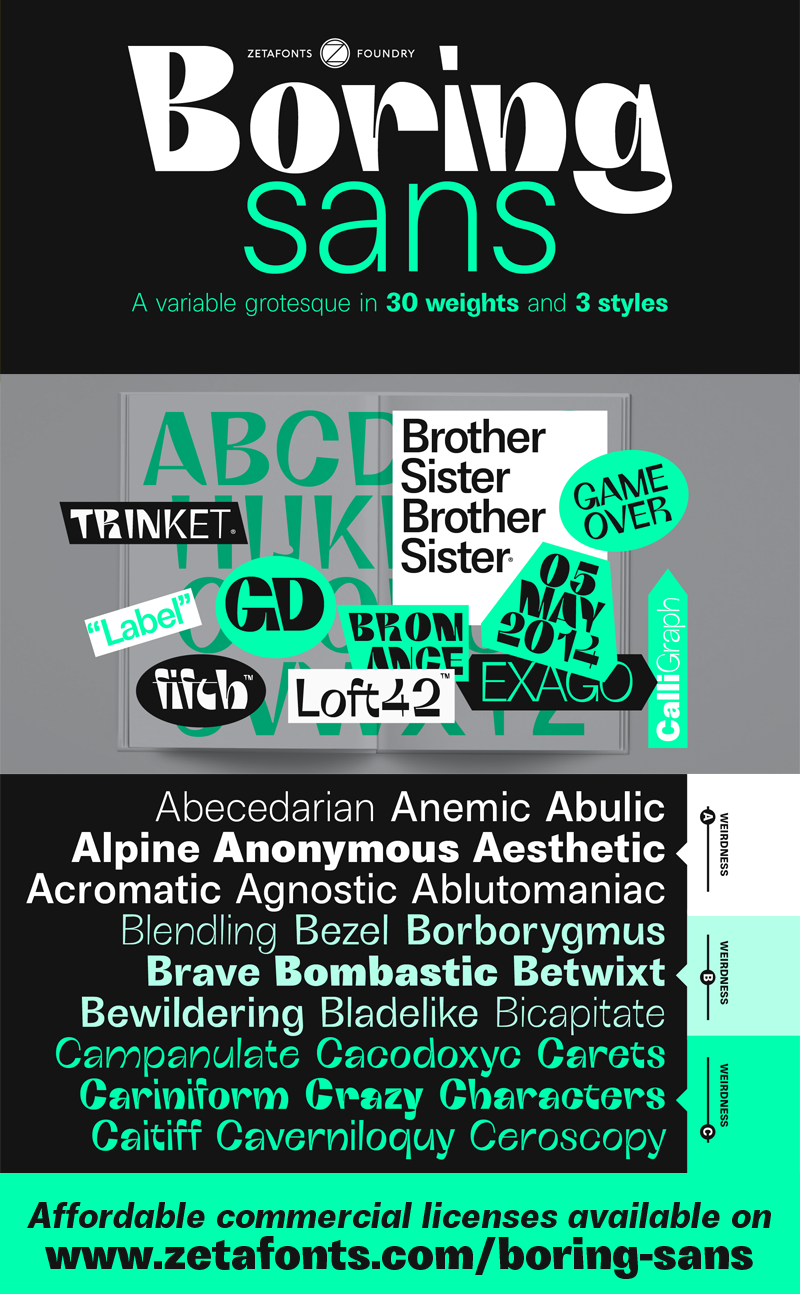
Preview and download Boring Sans B Font. Created by Zetafonts in Basic Sans serif styles with Free for personal use license.
The font here is for PERSONAL/NON-COMMERCIAL USE ONLY! To download the full font family (all weights, glyphs and numbers) and acquire the commercial license please visit our website: https://www.zetafonts.com/boring-sans For more info about our licenses: https://www.zetafonts.com/licensing CONTACT US: website: https://www.zetafonts.com have a question?: info@zetafonts.com --- Boring Sans, designed by Cosimo Lorenzo Pancini, is a typeface family designed along two variable axis: weight and weirdness. These two parameters allow designers to explore a full range of variations on sans serif design, starting from a neutral set of proportions and evolving to a strongly contrasted and dynamic treatment, ready to raise eyebrows on social media. The basic "A" subfamily, developed in five weights plus italics, behaves like a traditional, solid workhorse sans serif, with finely tuned proportions for optimal readability and minimal emotional impact. The "B" subfamily, developed in the same ten weights, shows a more contemporary "brutal" approach, with slanted lines, deep ink traps and stronger contrast. All these features are brought to the extreme in the ten weights of the "C" subfamily, with each letter a bombastic show of exuberant weirdness. Each of the style variant is developed in five weight with matching italics, with a glyph set covering extended latin languages and including many alternate forms and stylistic sets. |